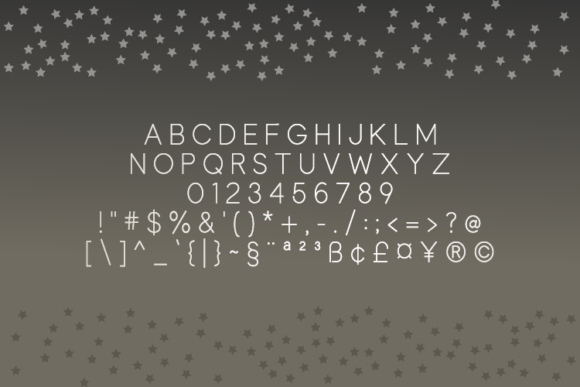
Introducing Eleua Regular Font: A Simple yet Elegant Sans Serif Typeface
Are you looking for a font that exudes simplicity, cleanliness, and elegance? Look no further than Eleua Regular Font. This sans serif font is designed to provide a clean and beautiful feel to your designs, making it perfect for both formal and non-formal projects. In this article, we’ll dive into the features and benefits of Eleua Regular Font and explore how it can elevate your typography.
What is Eleua Regular Font?
Eleua is a simple and casual sans serif font that boasts an undeniably clean feel. Its neat and beautiful arrangement of letters makes it a standout typeface that can add a touch of sophistication to any design. With its versatility, Eleua can be used in a wide range of applications, from digital designs to print materials.
Key Features of Eleua Regular Font
- Clean and Simple Design: Eleua’s sans serif design ensures that your text is easy to read and understand, making it perfect for body text, headings, and titles.
- 10 Weights: Eleua comes in 10 different weights, allowing you to choose the perfect font weight to suit your design needs. Whether you’re looking for a light and airy feel or a bold and dramatic look, Eleua has got you covered.
- Beautiful Arrangement of Letters: Eleua’s letters are carefully crafted to provide a beautiful and harmonious flow, making it perfect for use in both formal and non-formal designs.
- Versatility: Eleua is a versatile font that can be used in a wide range of applications, including digital designs, print materials, logos, and more.
Benefits of Using Eleua Regular Font
So, why choose Eleua Regular Font for your next design project? Here are just a few benefits of using this elegant sans serif font:
- Elegance and Sophistication: Eleua adds a touch of elegance and sophistication to any design, making it perfect for high-end brands and luxury products.
- Readability: Eleua’s clean and simple design ensures that your text is easy to read and understand, making it perfect for body text and headings.
- Flexibility: With 10 different weights to choose from, Eleua provides the flexibility to create a wide range of designs, from subtle and understated to bold and dramatic.
- Time-Saving: With Eleua, you can save time and effort by using a single font family that meets all your design needs.
Who Can Benefit from Eleua Regular Font?
Eleua Regular Font is perfect for a wide range of designers and crafters, including:
- Graphic Designers: Eleua is a versatile font that can be used in a wide range of graphic design projects, from logos and branding to print materials and digital designs.
- Web Designers: Eleua’s clean and simple design makes it perfect for use in web design, providing a beautiful and harmonious flow to your website’s typography.
- Crafters and Makers: Eleua is perfect for crafters and makers who want to add a touch of elegance and sophistication to their products, packaging, and marketing materials.
In conclusion, Eleua Regular Font is a simple yet elegant sans serif font that offers a clean and beautiful feel to your designs. With its 10 different weights, versatility, and readability, Eleua is perfect for a wide range of design applications. Whether you’re a graphic designer, web designer, or crafter, Eleua Regular Font is a great addition to your font library.